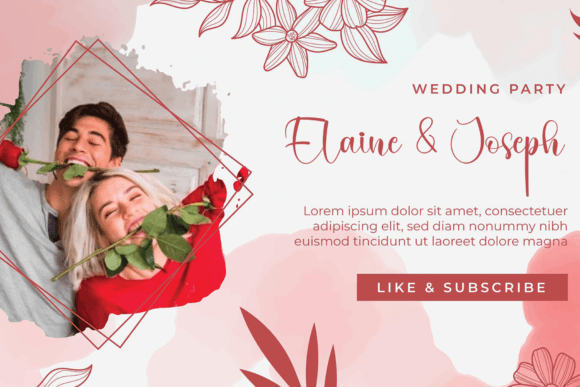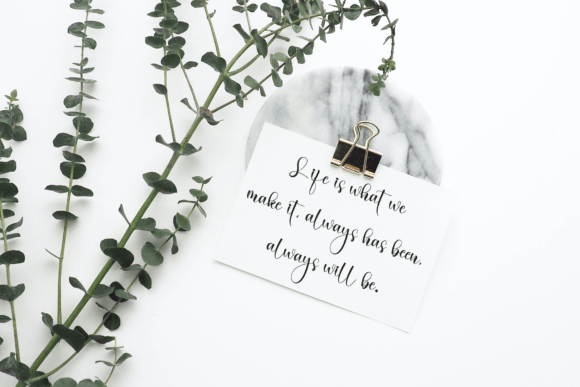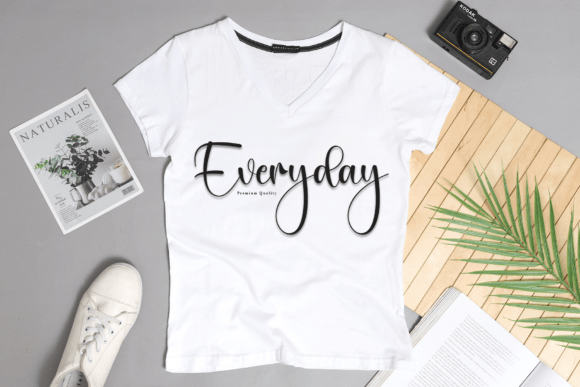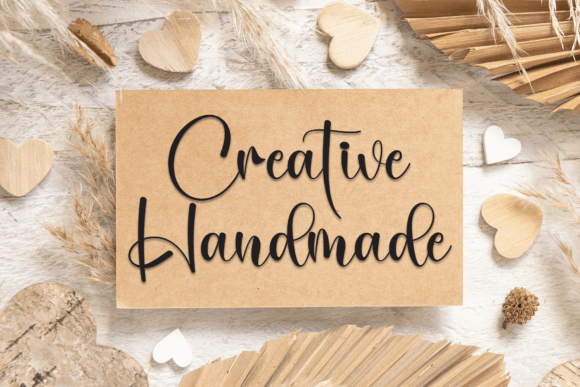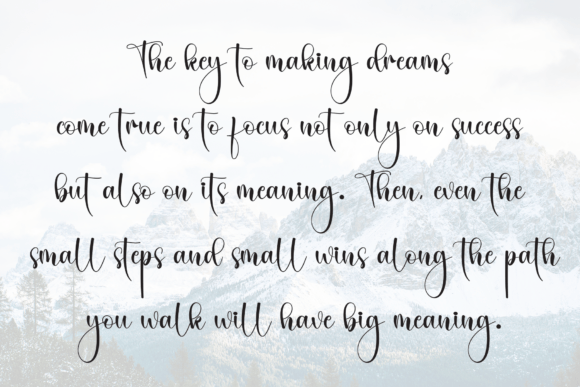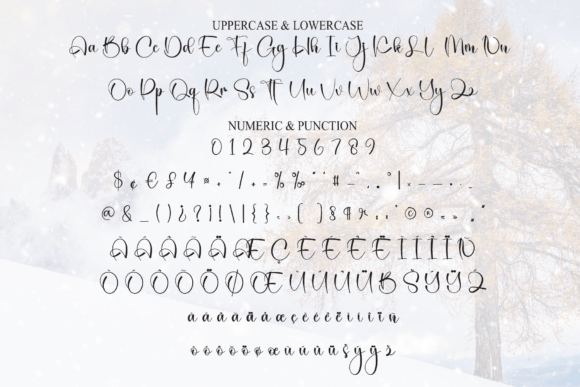
Introduction to Christmas Wintersnow Font Font
Fonts play a crucial role in design, and the Christmas Wintersnow Font font is a typeface that brings both character and versatility to any project. Whether you’re working on a branding project, a website, or a print design, the Christmas Wintersnow Font font offers a unique style that can elevate your work.
Christmas Wintersnow is a charming handwritten font that feels cozy and festive.
With playful, smooth letters, itβs perfect for holiday cards, decorations, and seasonal projects Its warm style adds a touch of joy to any design.
Key Features of Christmas Wintersnow Font Font
Why Choose Christmas Wintersnow Font Font?
The Christmas Wintersnow Font font is more than just a typeface β it’s a design tool that helps you communicate your message with style and clarity. Its unique character set and versatile design make it suitable for a wide range of applications, from elegant invitations to bold headlines.
With its carefully crafted letterforms and balanced proportions, the Christmas Wintersnow Font font ensures readability and visual appeal across all mediums.
What makes Christmas Wintersnow Font font special?
The Christmas Wintersnow Font font stands out with its unique design, exceptional readability, and versatility across various design applications.